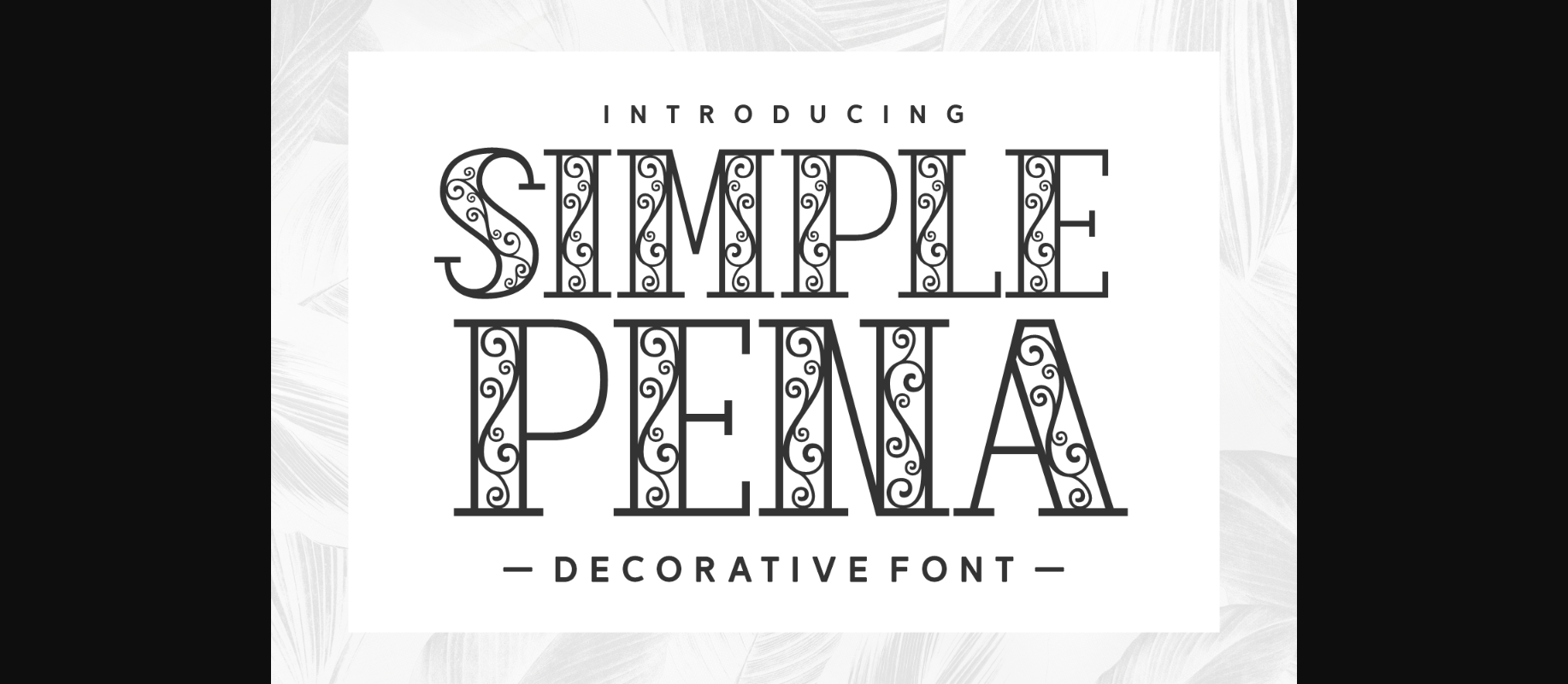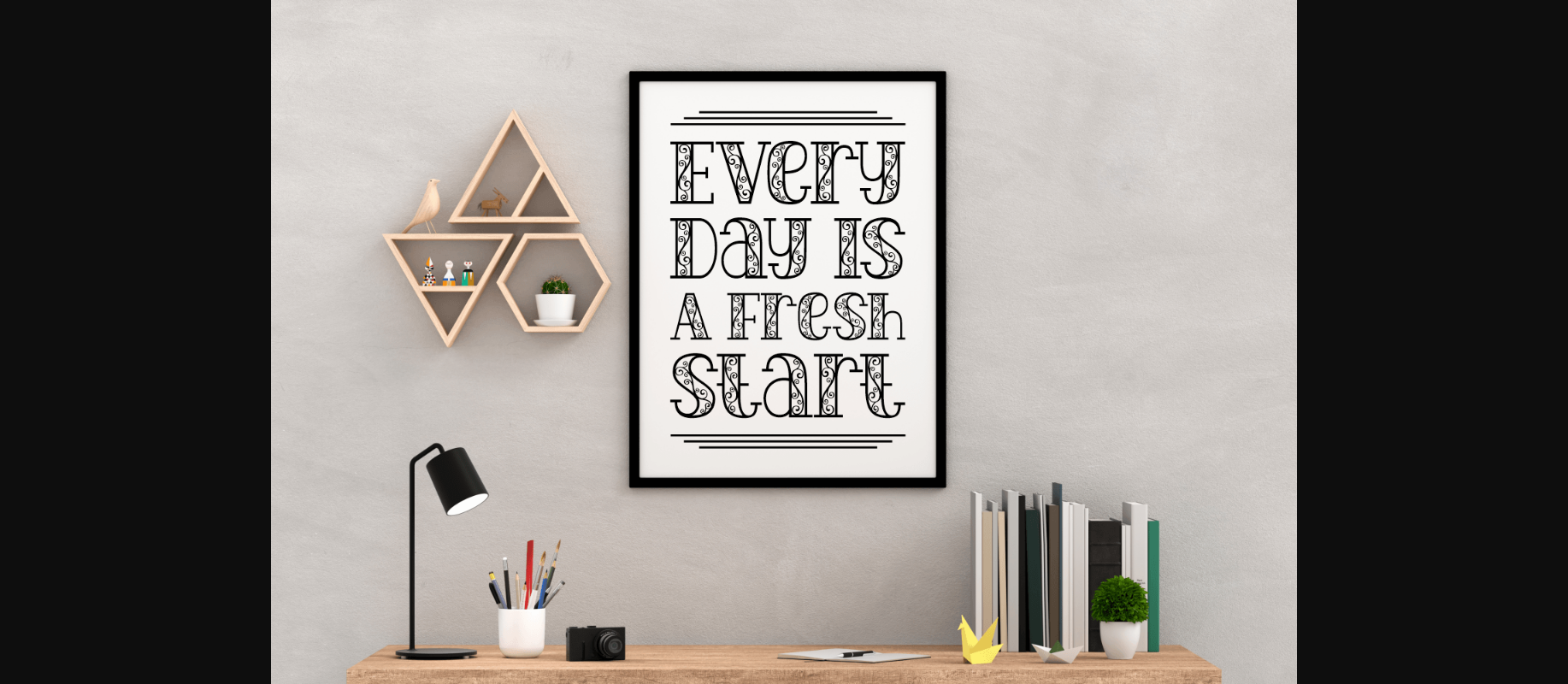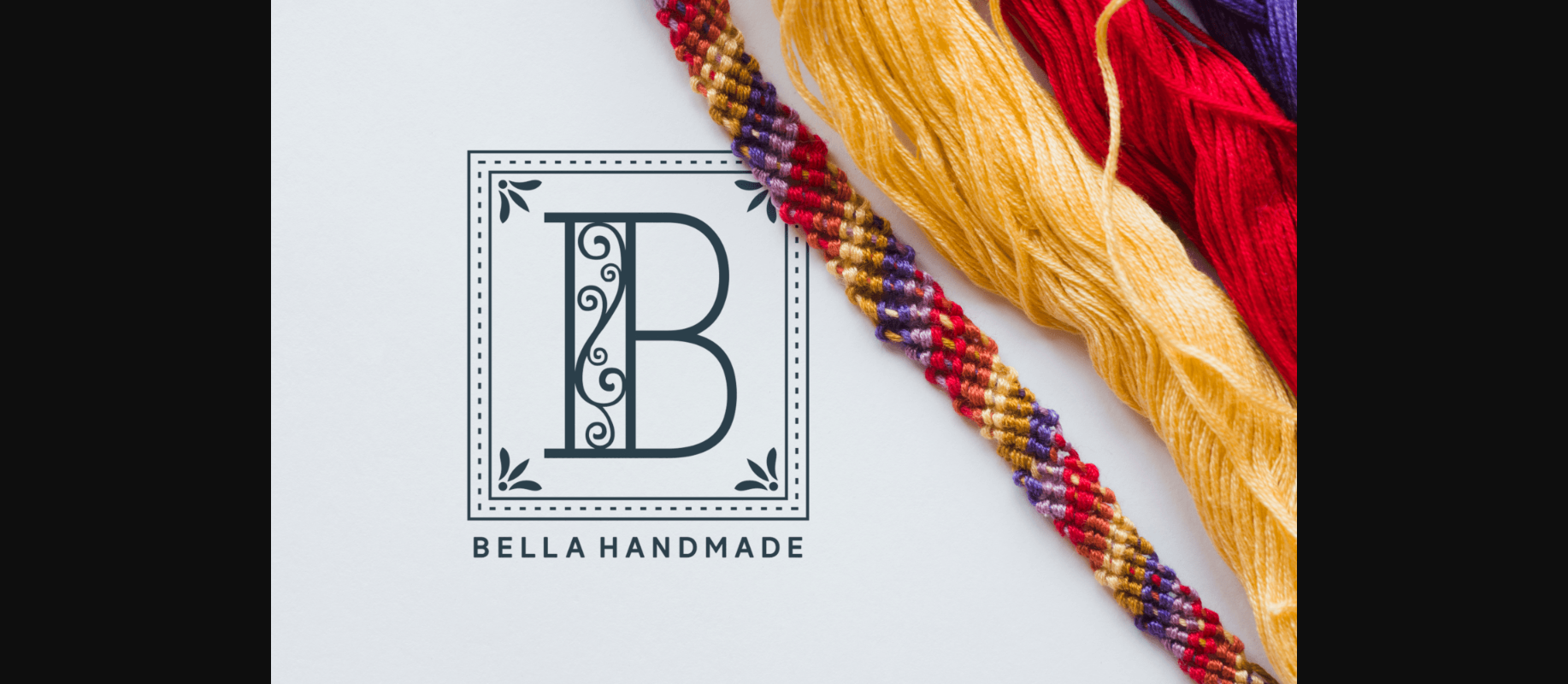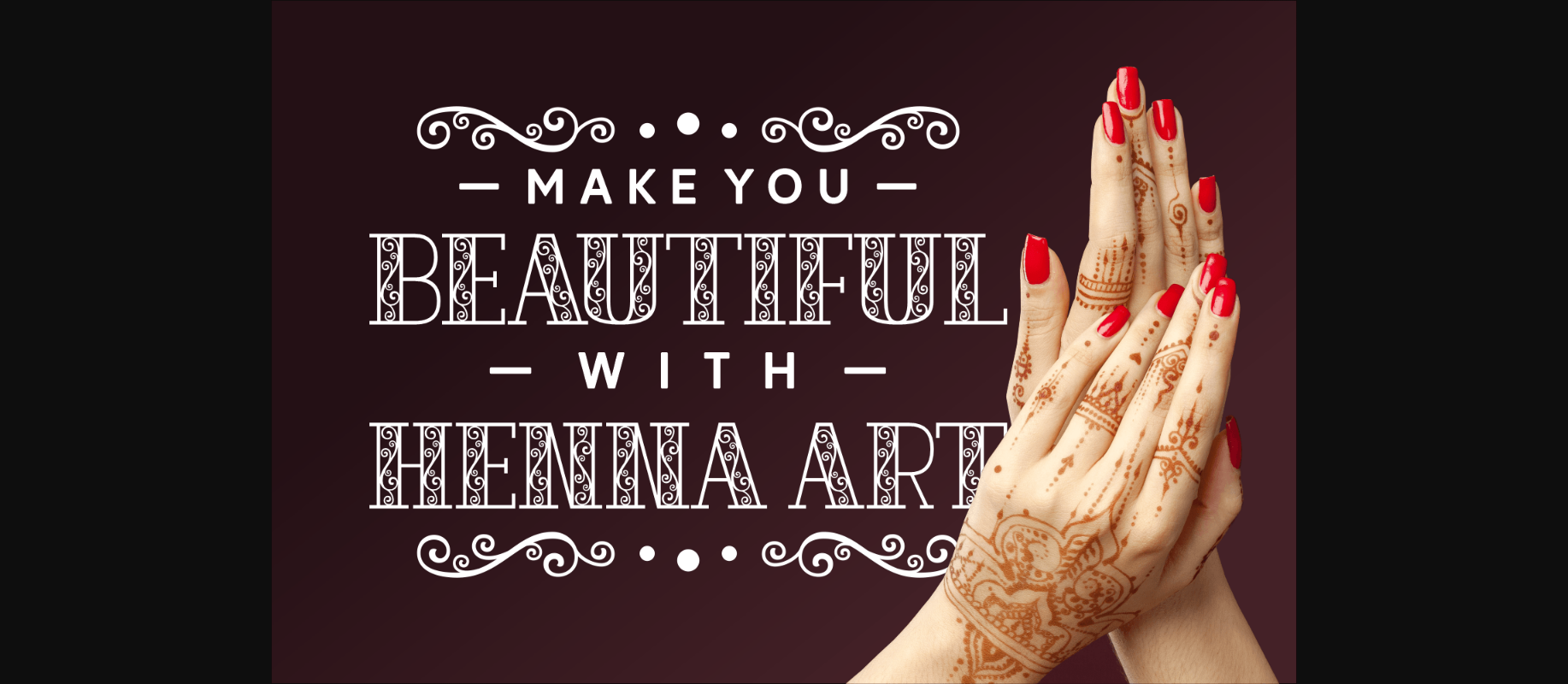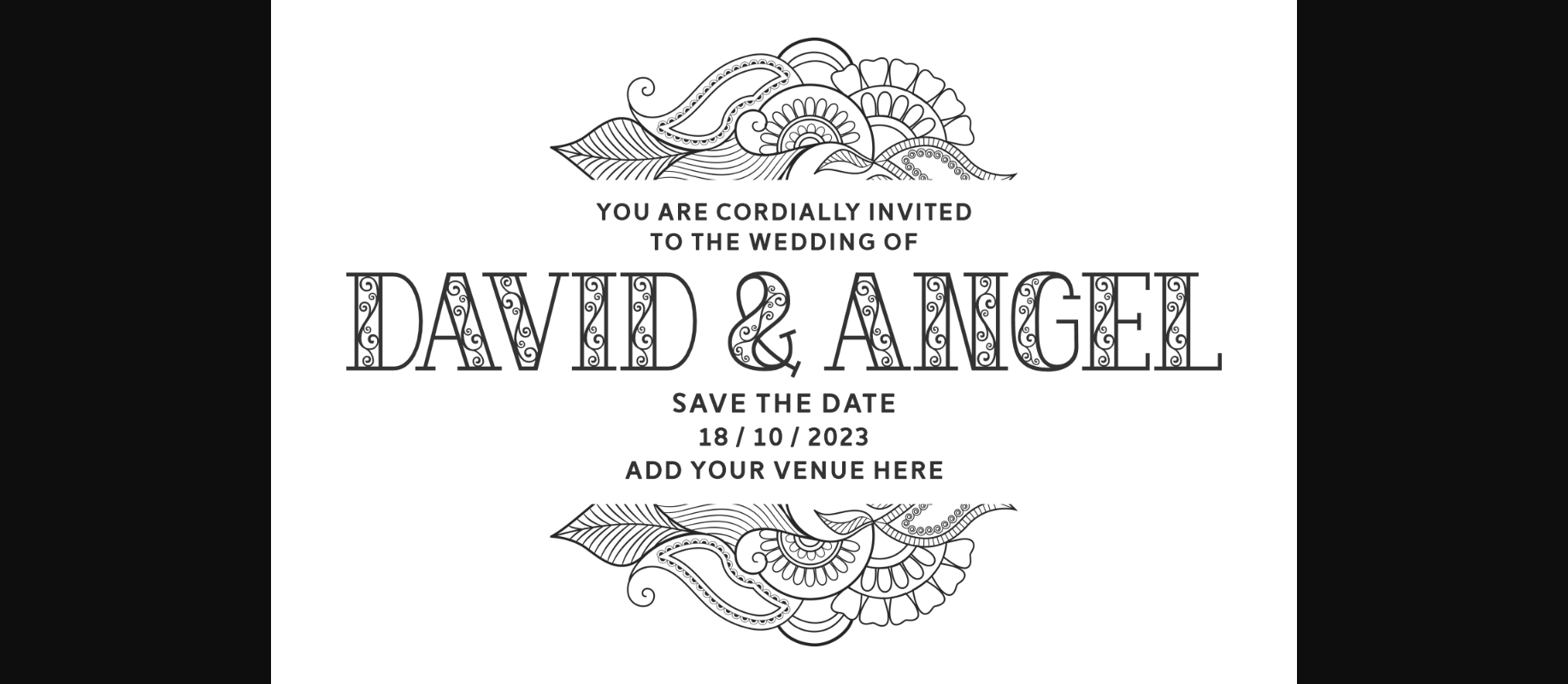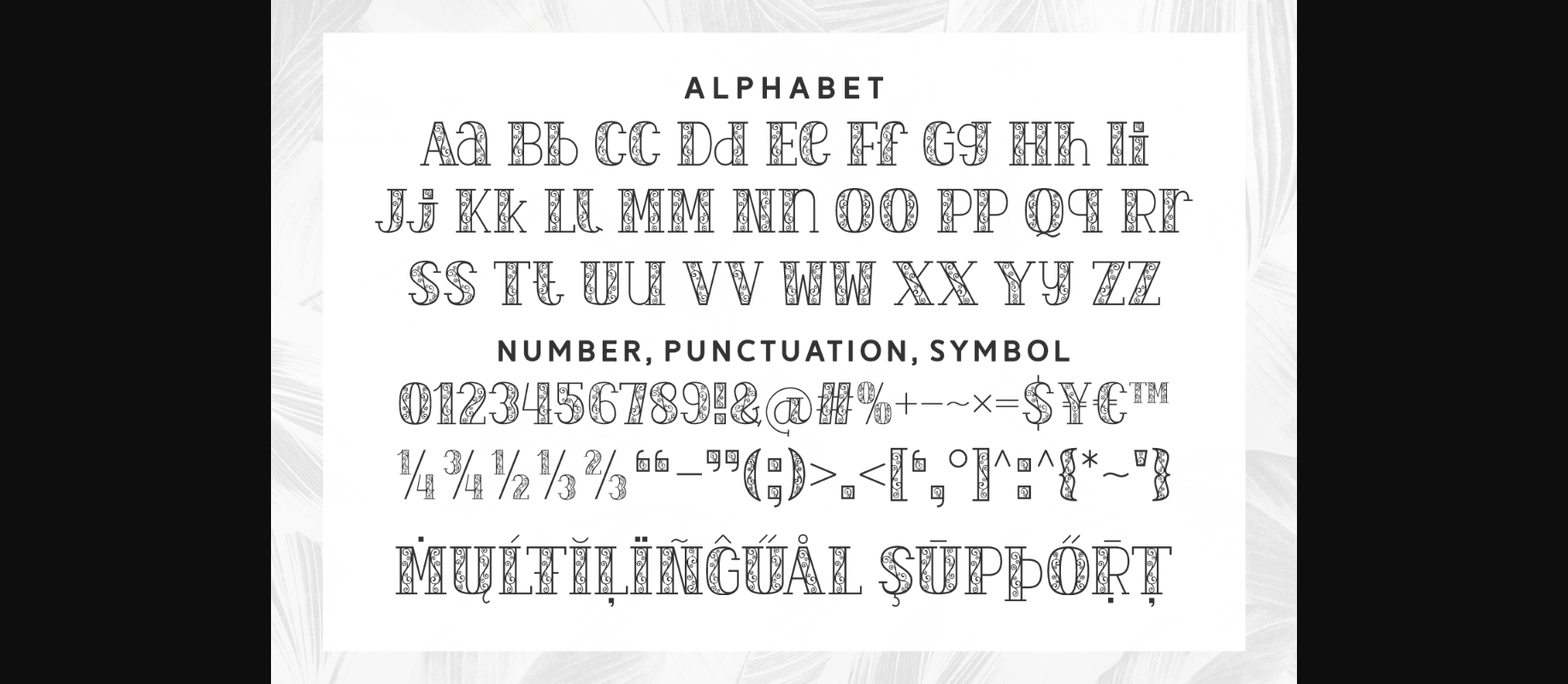
Simple Pena Font
About Simple Pena Font
Simple Pena is a gorgeous and elegant decorative font. With its graceful swirly lines, this typeface has the potential to elevate any design. Use it to create beautiful invitations, logos, cards, posters, apparel, and many more.